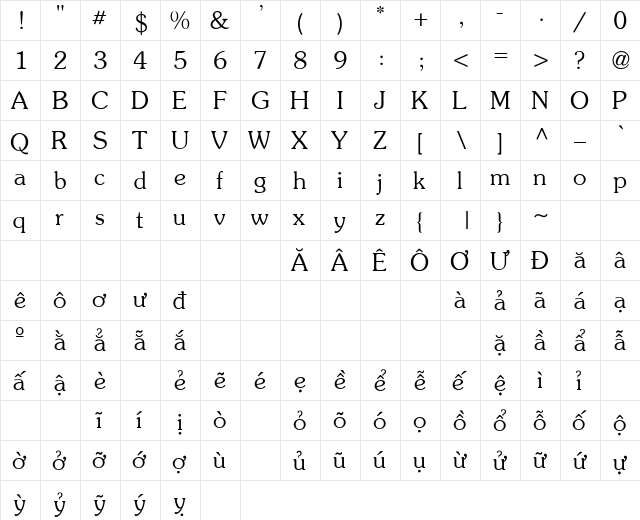
.VnSouthern Regular
Design Context for .VnSouthern Typeface
.VnSouthern offers clean, dependable letterforms without strong stylistic allegiance, making it a practical choice for designers who need flexibility.